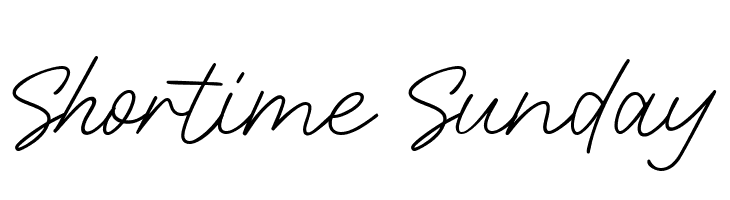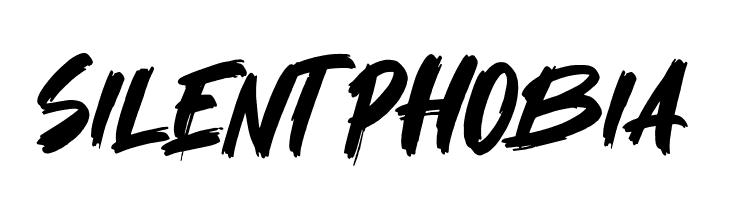
• Delight Coffee
A playful, bold font with rounded, thick strokes and a whimsical touch.
• Sanset
A modern, geometric font with clean lines and a sleek design.
• Maletta
A slender, handwritten script font with an elegant and fluid style.
• Mueda City
A playful, bold handwritten font with rounded, consistent strokes.
• Hugamour
A bold, playful handwritten font with heart-shaped accents and smooth curves.
• Exbrat
A bold, dynamic font with a hand-drawn, energetic style.
• Objectis
A bold, geometric font with a futuristic and modern design.
• Silent Phobia
A bold, brush-style font with dynamic and expressive strokes.
• April June
A cursive, handwritten font with elegant, flowing strokes and medium contrast.
• Shortime Sunday
A cursive, handwritten font with a casual and fluid style.